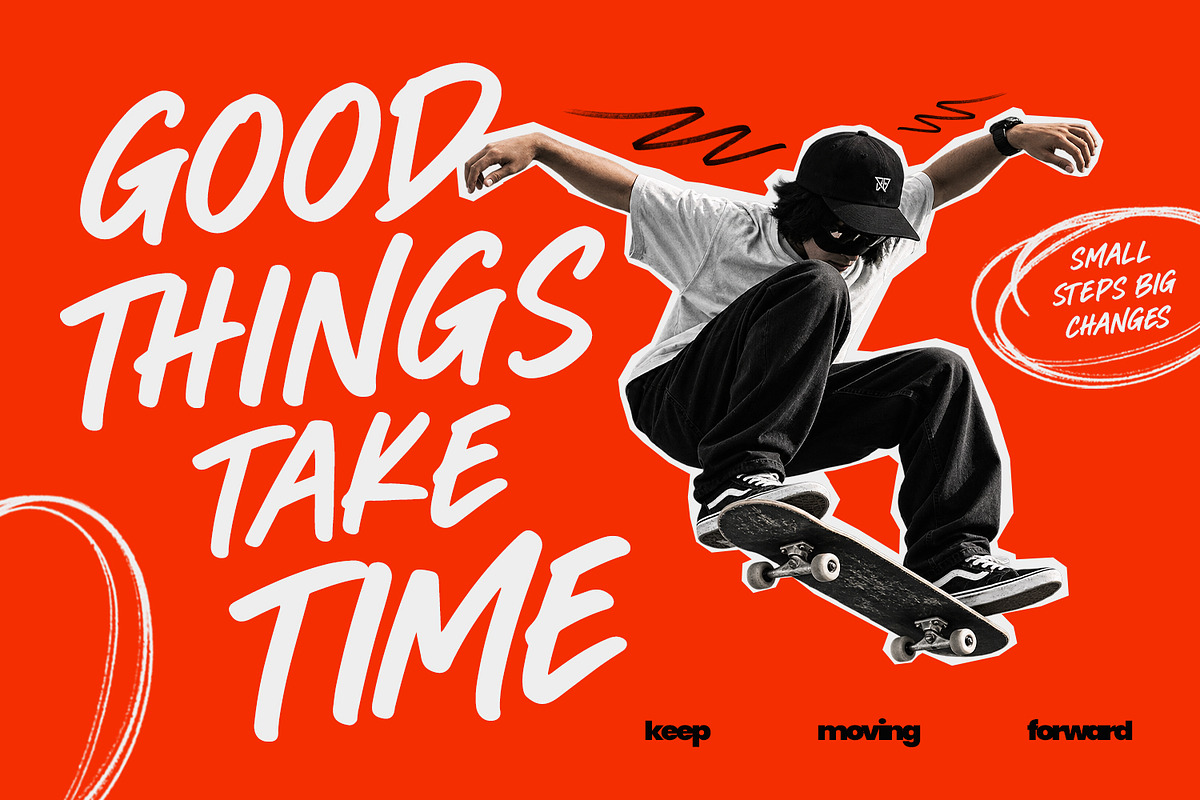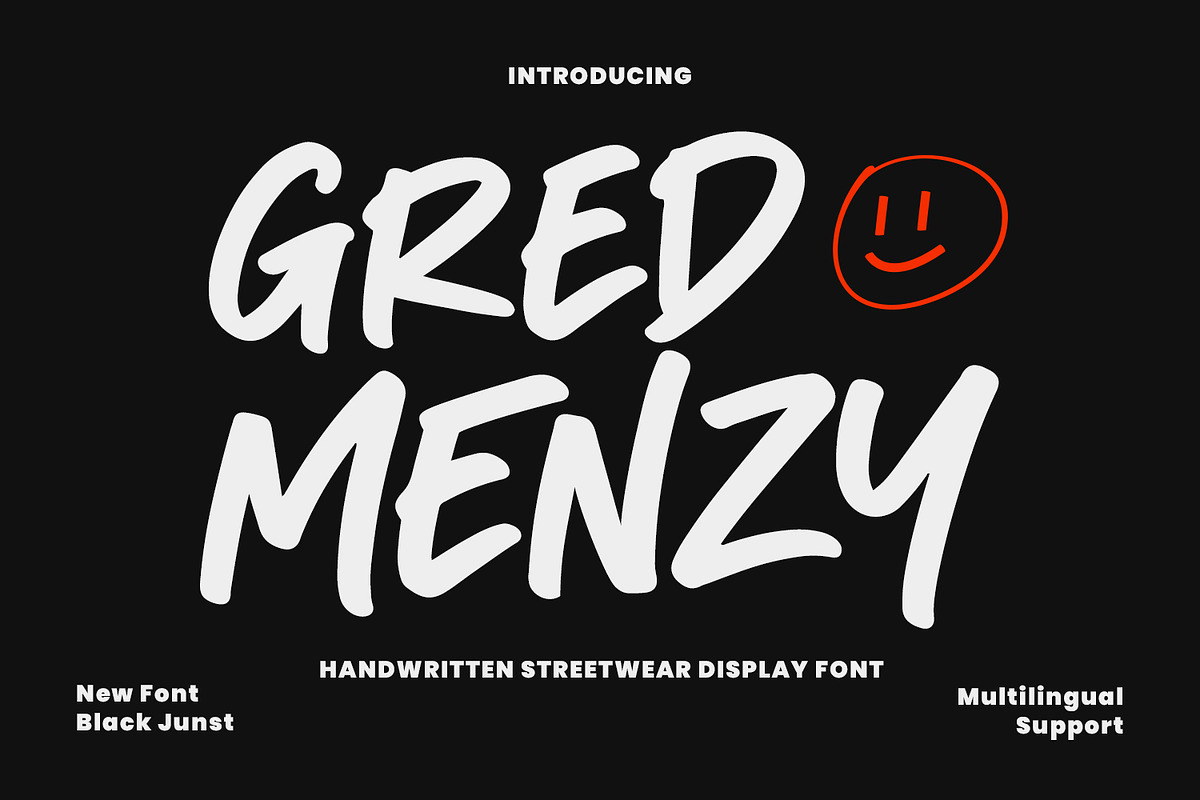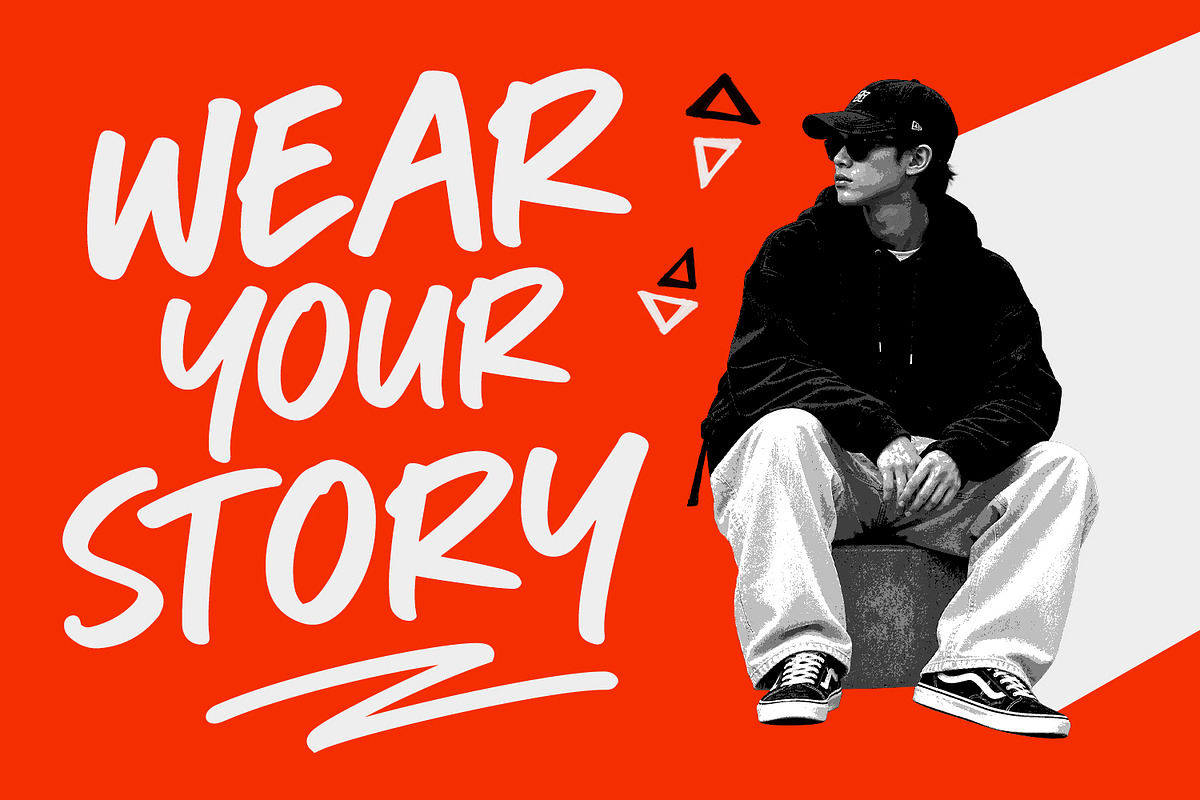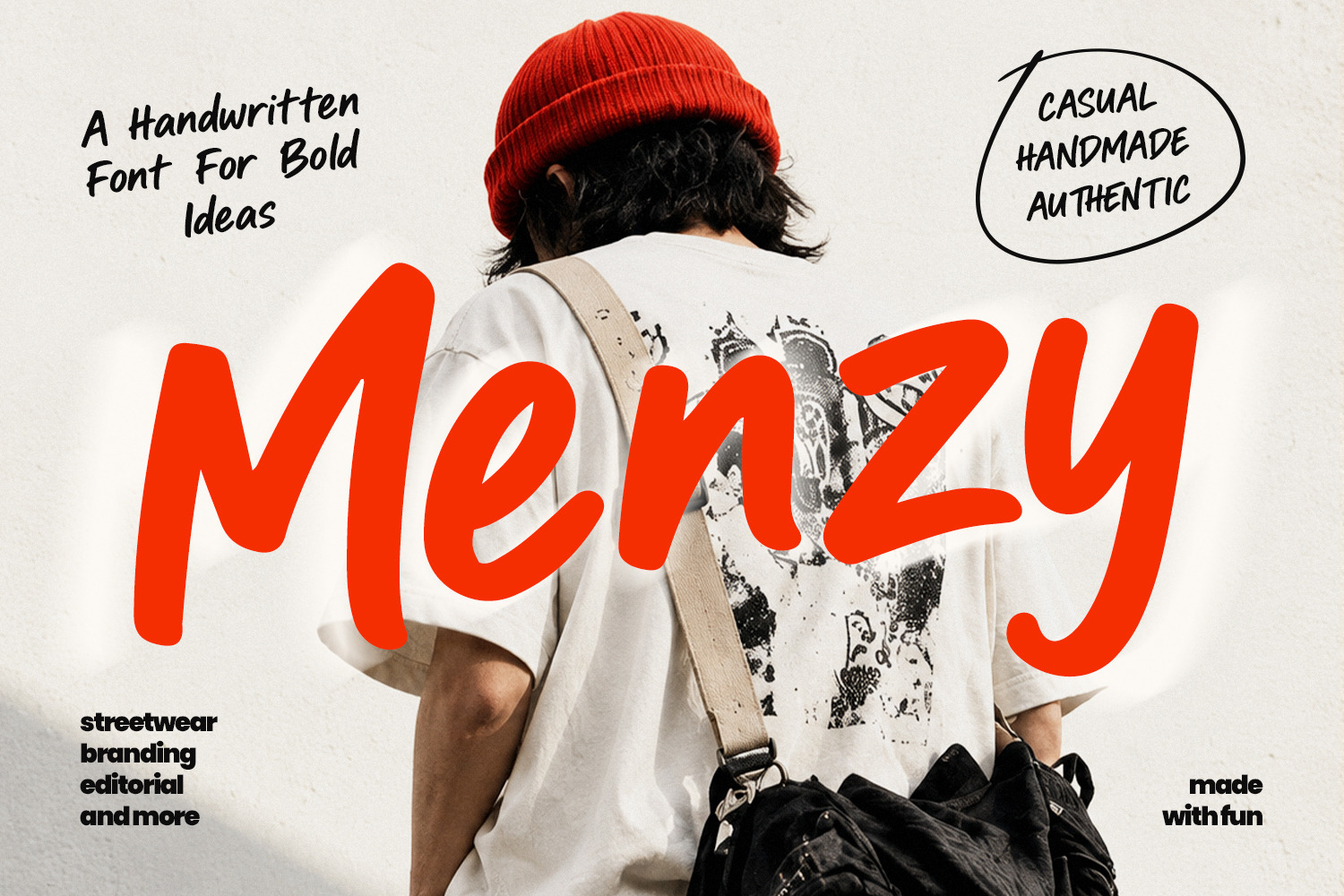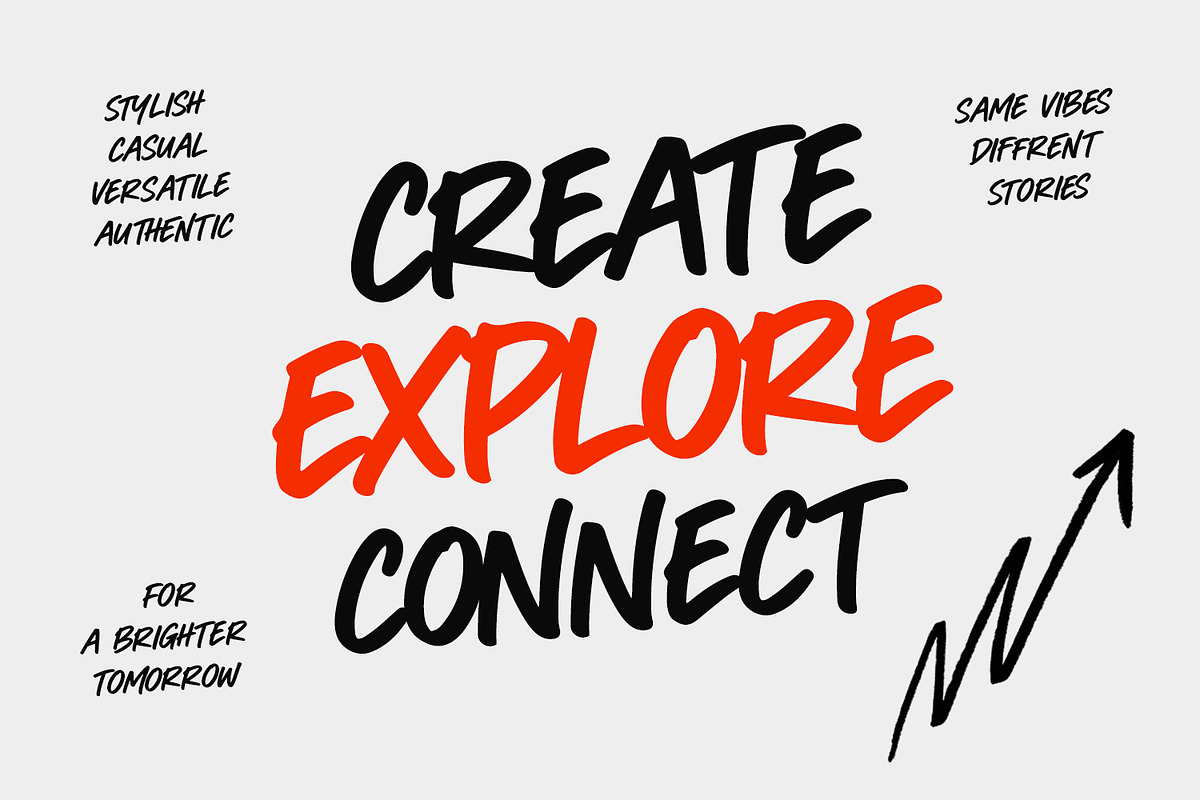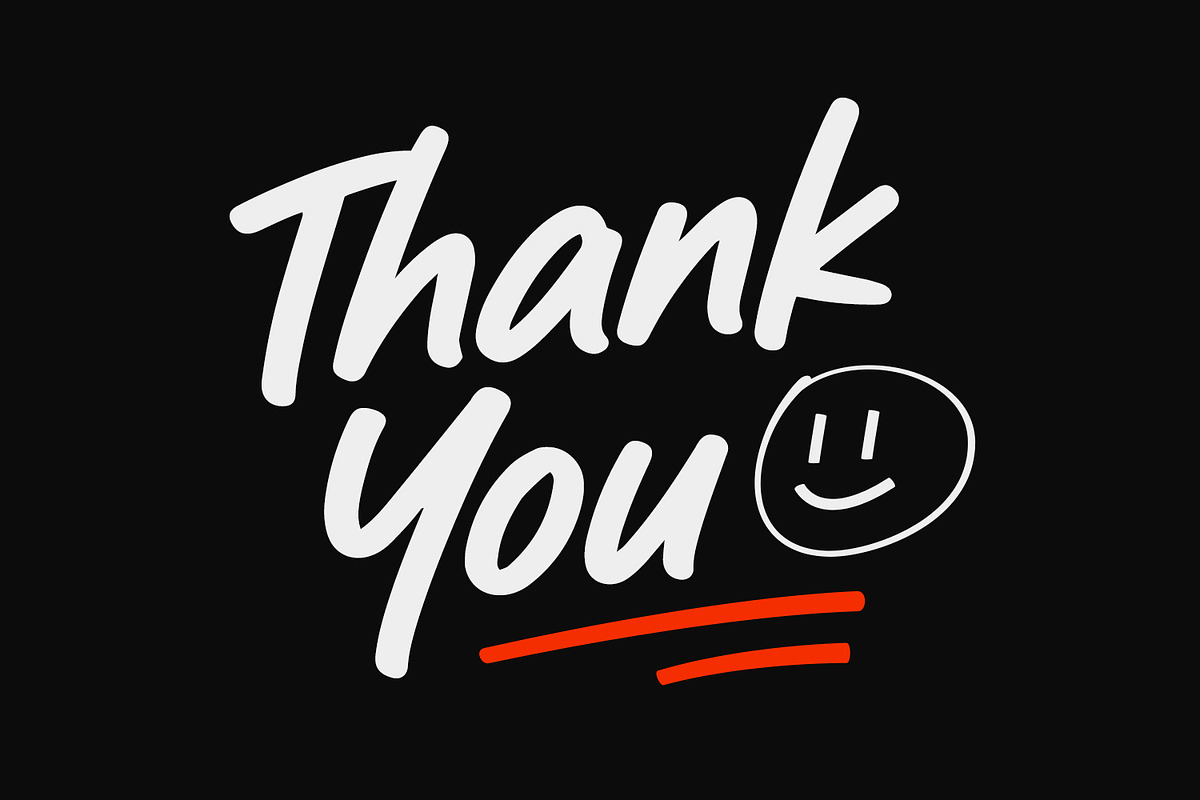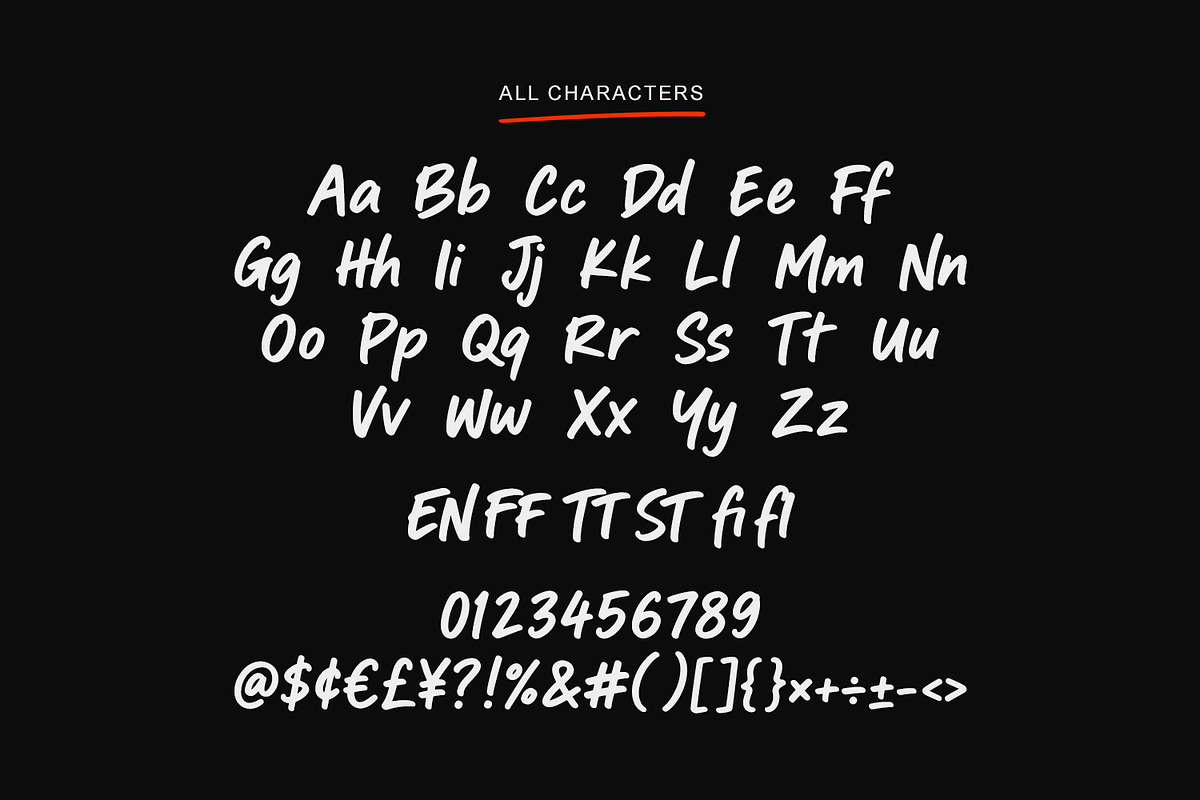
Gred Menzy – Handwritten Script Font
Gred Menzy is a bold handwritten streetwear Script display font with a raw, expressive, and energetic brush style. Designed to bring an authentic handmade feel to modern designs, it combines strong letterforms with a natural hand-drawn character.
Perfect for streetwear branding, apparel design, t-shirts, clothing labels, logos, posters, merchandise, album artwork, social media graphics, packaging, stickers, and bold headlines.
Gred Menzy works especially well when you want your design to feel confident, creative, youthful, rebellious, and handcrafted.
Whether you're creating a streetwear collection, clothing brand, event poster, merchandise, or standout logo, Gred Menzy adds an eye-catching handmade personality to your work.
Streetwear & apparel branding
T-shirt and merchandise design
Logo & brand identity
Posters & flyers
Clothing labels
Packaging
Album & music artwork
Stickers & badges
Headlines & display typography
Gred Menzy — bold handwriting with authentic streetwear energy.